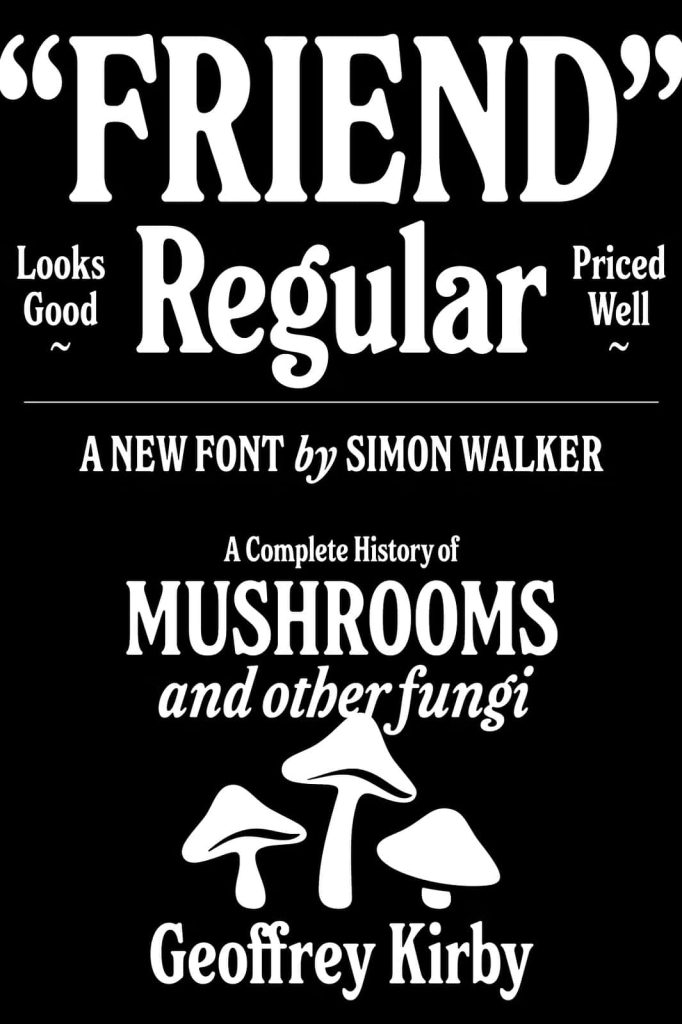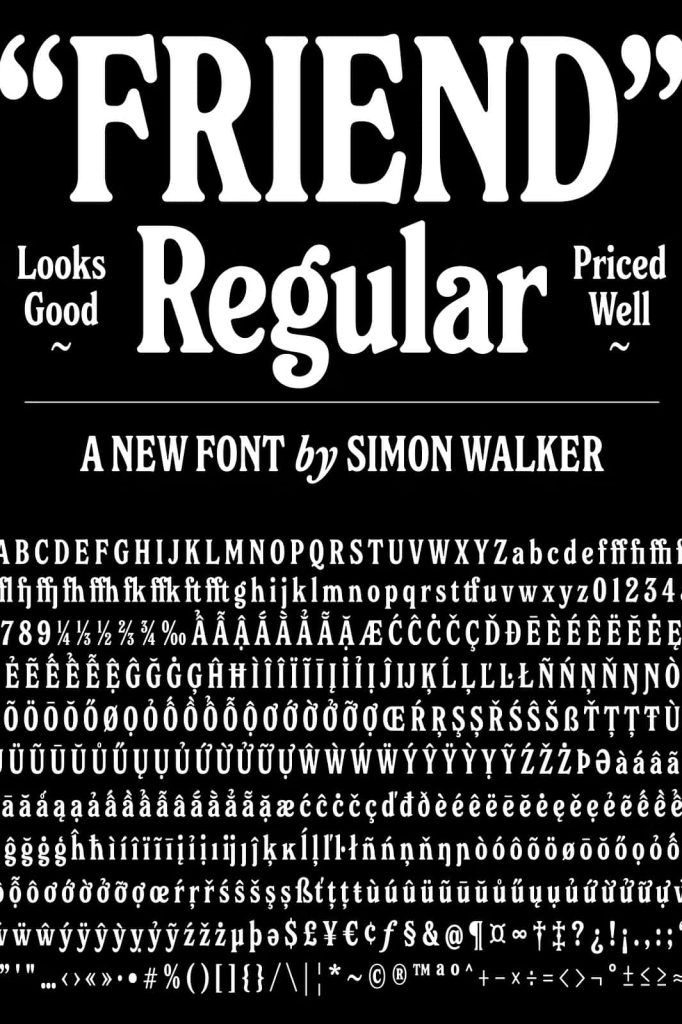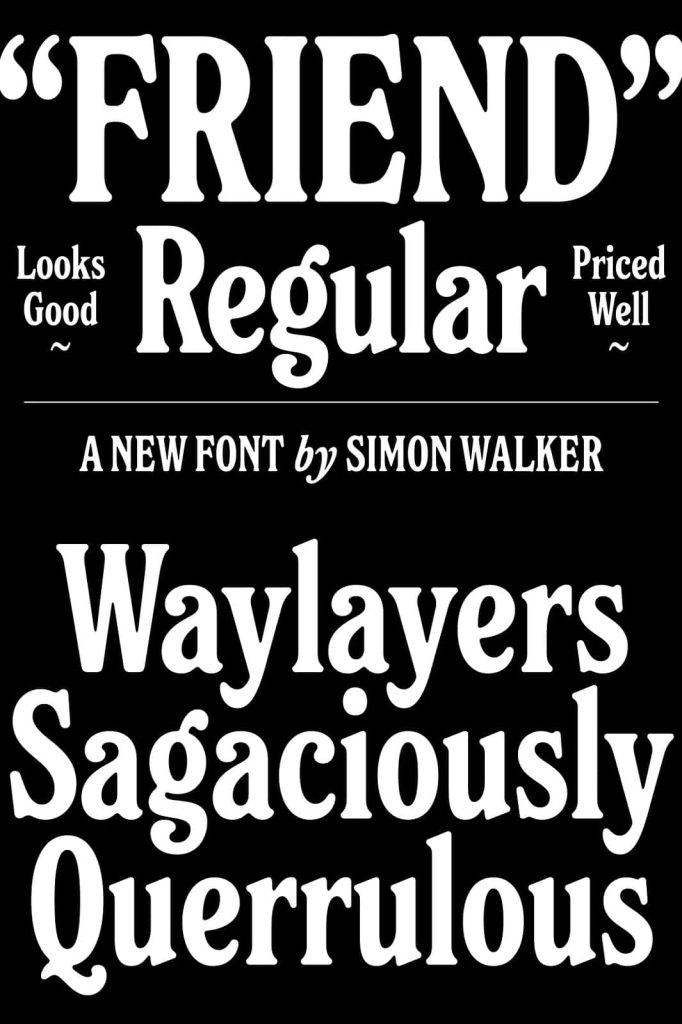
Friend Regular Font: A Friendly and Tall Rounded-Serif Typeface
Friend Regular is a warm and approachable tall rounded-serif font designed to bring comfort, clarity, and personality to any visual project. Its distinctive rounded edges and tall letterforms create a welcoming appearance while maintaining strong readability. Friend Regular also includes a beautifully crafted Italic style, giving designers additional flexibility and creative freedom when shaping expressive typography. This typeface stands out for its simplicity, friendliness, and modern appeal, making it a versatile choice for countless design applications.
A Typeface Built with Warmth and Approachability
Friend Regular earns its name through its naturally friendly design. The rounded-serif style softens each letter, creating a gentle and approachable feel. This warm character makes the font ideal for projects that aim to communicate trust, positivity, and openness. Whether used in print or digital media, Friend Regular delivers a tone that feels welcoming and easy to read.
The tall proportions of each letter enhance its overall readability, even at smaller sizes. This makes the font especially useful for body text in editorial layouts, instructional content, children’s materials, or product packaging. The smooth curves and clean serifs help maintain balance, ensuring that the text flows comfortably across the page.
Includes a Complementary Italic Style
The inclusion of an Italic version of Friend Regular adds a powerful layer of versatility. The Italic style maintains the same friendly personality while introducing a subtle sense of motion and emphasis. Designers can use it to highlight important phrases, create contrast, or bring a dynamic element to headlines or subheadings.
Because the Italic style is crafted with the same attention to detail as the regular version, both styles pair seamlessly. They complement each other without feeling forced or inconsistent, allowing designers to maintain harmony within their layouts while establishing visual hierarchy.
Perfect for a Wide Range of Design Projects
Friend Regular excels in versatility, offering the flexibility needed to work effectively in diverse visual environments. Its rounded-serif shape makes it suitable for branding projects that aim to build trust and personality. The font’s friendly energy supports brands in fields such as education, health, wellness, community services, family products, food packaging, and lifestyle businesses. Whether used in a logo, tagline, or promotional material, Friend Regular presents a clean and modern identity.
Editorial designers will appreciate Friend Regular for its legibility and gentle structure. The tall letterforms perform well in magazines, brochures, and book layouts, ensuring comfortable reading for both long and short passages. Its rounded serifs add a unique charm without overwhelming the content, making it an excellent alternative to more rigid or traditional serif fonts.
Digital creators can use the font in website headers, app interfaces, social media graphics, and online advertisements. Its clarity ensures that text remains easy to read across various screen sizes and resolutions. The font’s soft edges help present information in a friendly and engaging way, which improves viewer experience and retention.
A Font Designed for Creativity and Expressive Typography
Friend Regular supports creative expression through its balanced design. Its rounded-serif structure gives designers the opportunity to craft layouts that feel modern, optimistic, and inviting. Combined with the Italic style, the font offers enough variation to build dynamic typographic compositions without relying on multiple font families.
Whether you design for print or digital, Friend Regular allows you to maintain clarity while expressing warmth and character. Its thoughtful design ensures professional results while preserving a personal touch. From branding and packaging to editorials and digital content, this font delivers the right balance of friendliness and structure, making it a reliable resource for designers seeking a tall, rounded-serif typeface with personality.